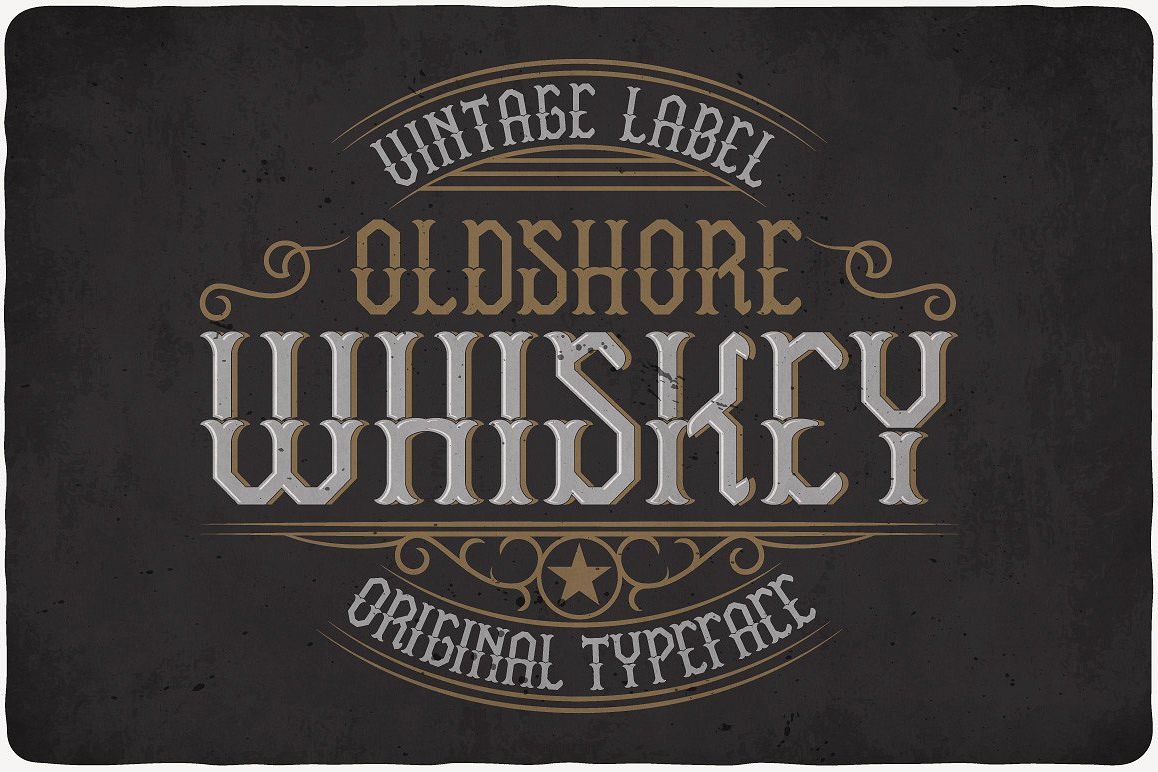
Introducing a vintage look label typeface named "Oldshore Whiskey". It's made in strong and vintage label style. Typeface is good viewed on any labels design.Complect: